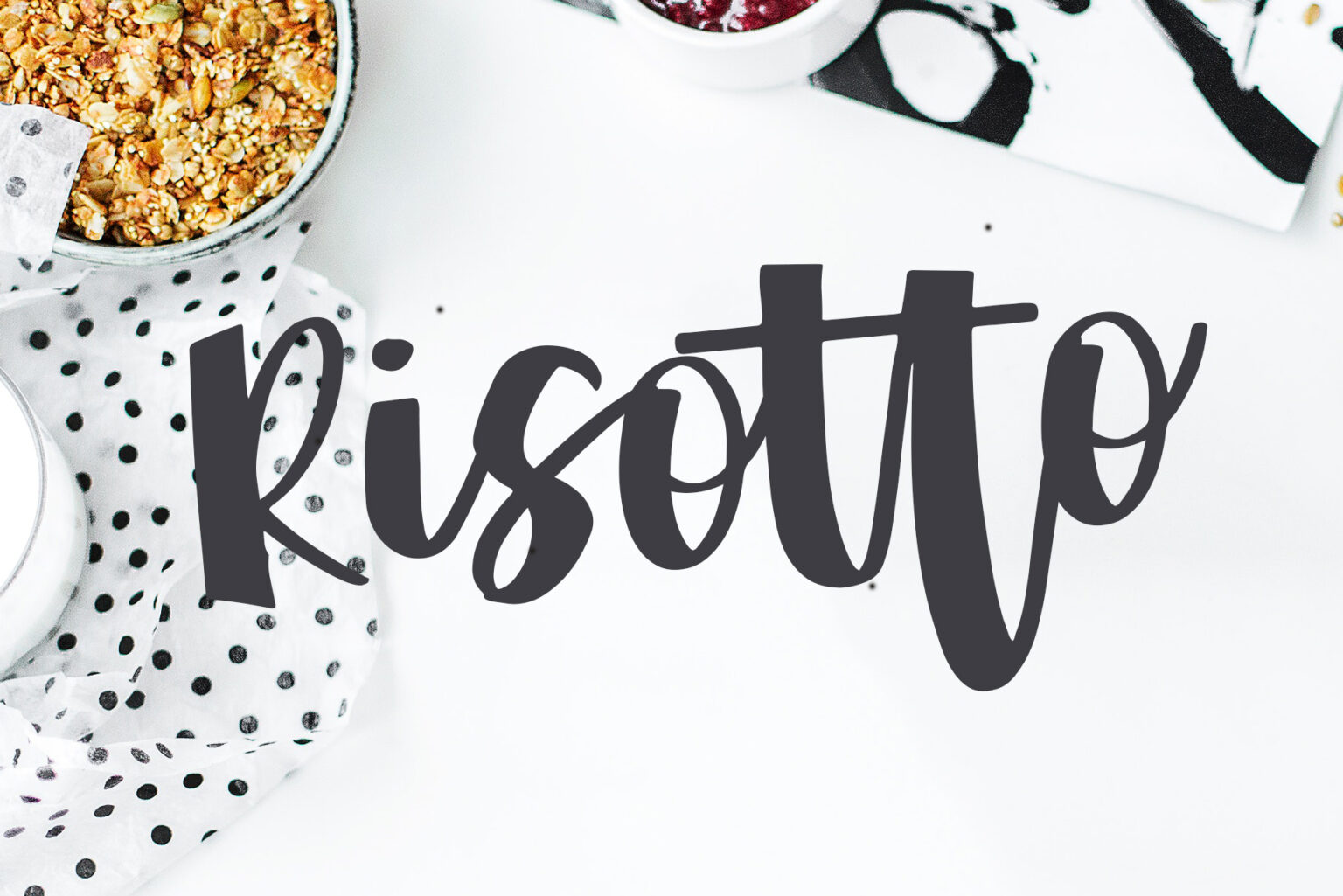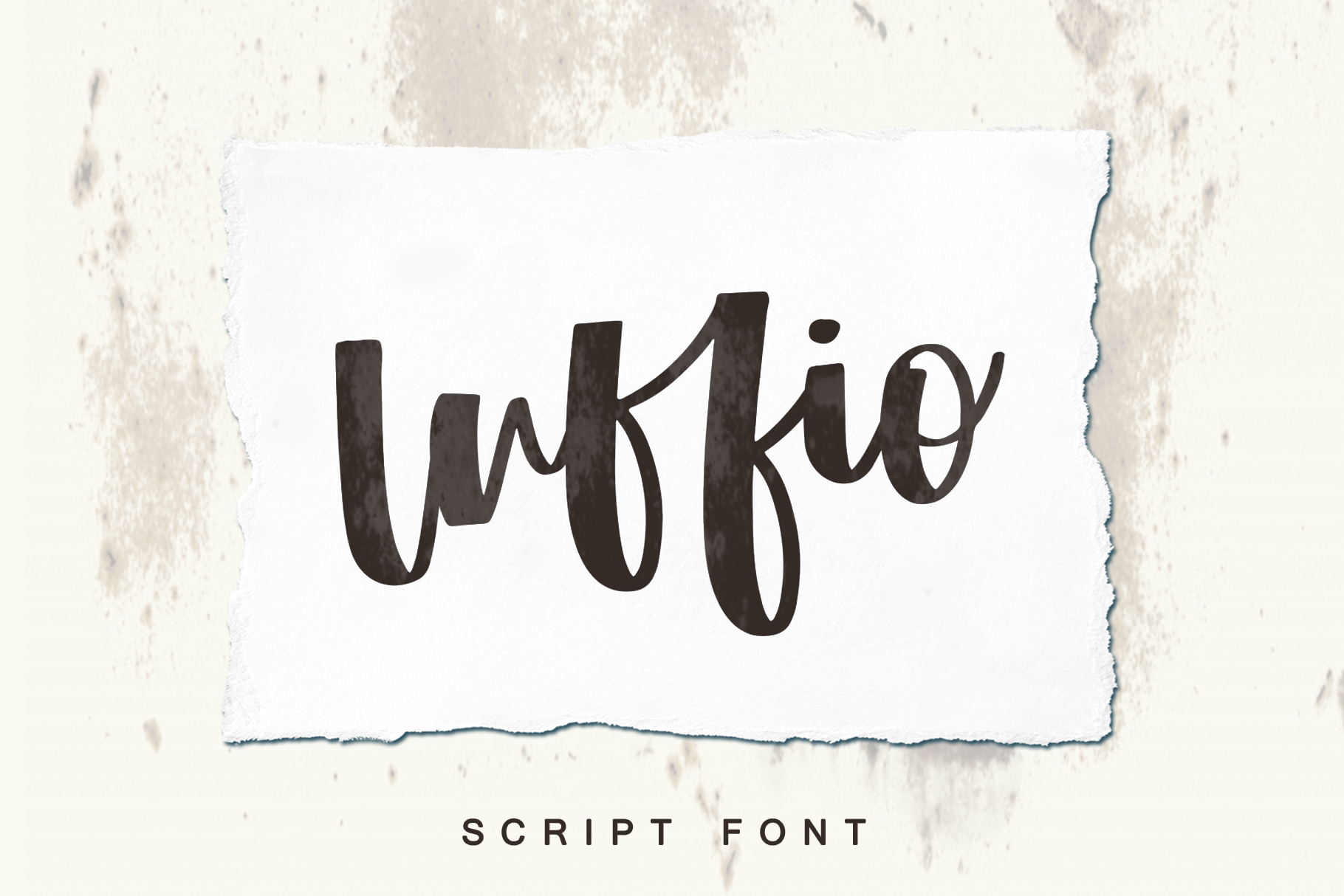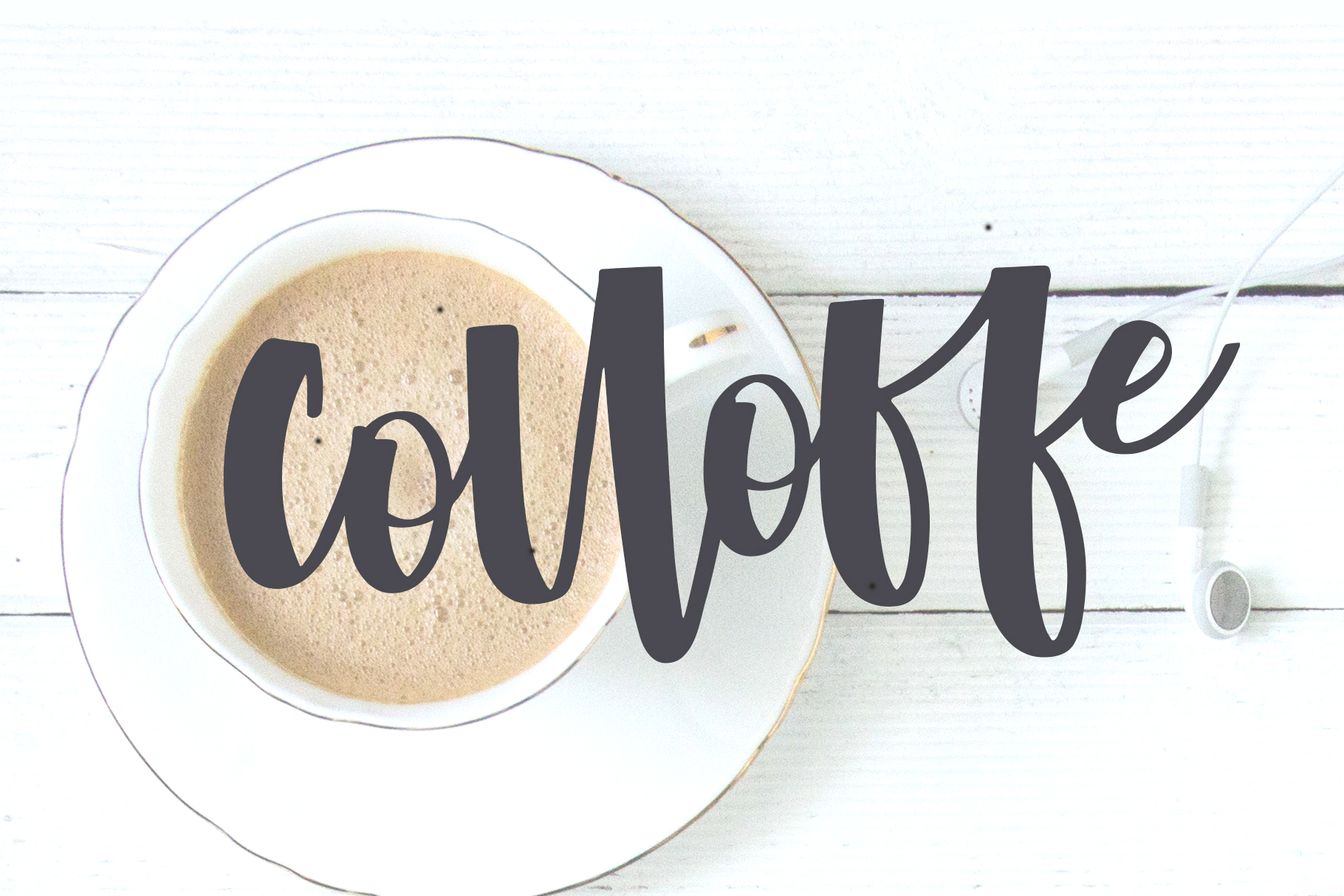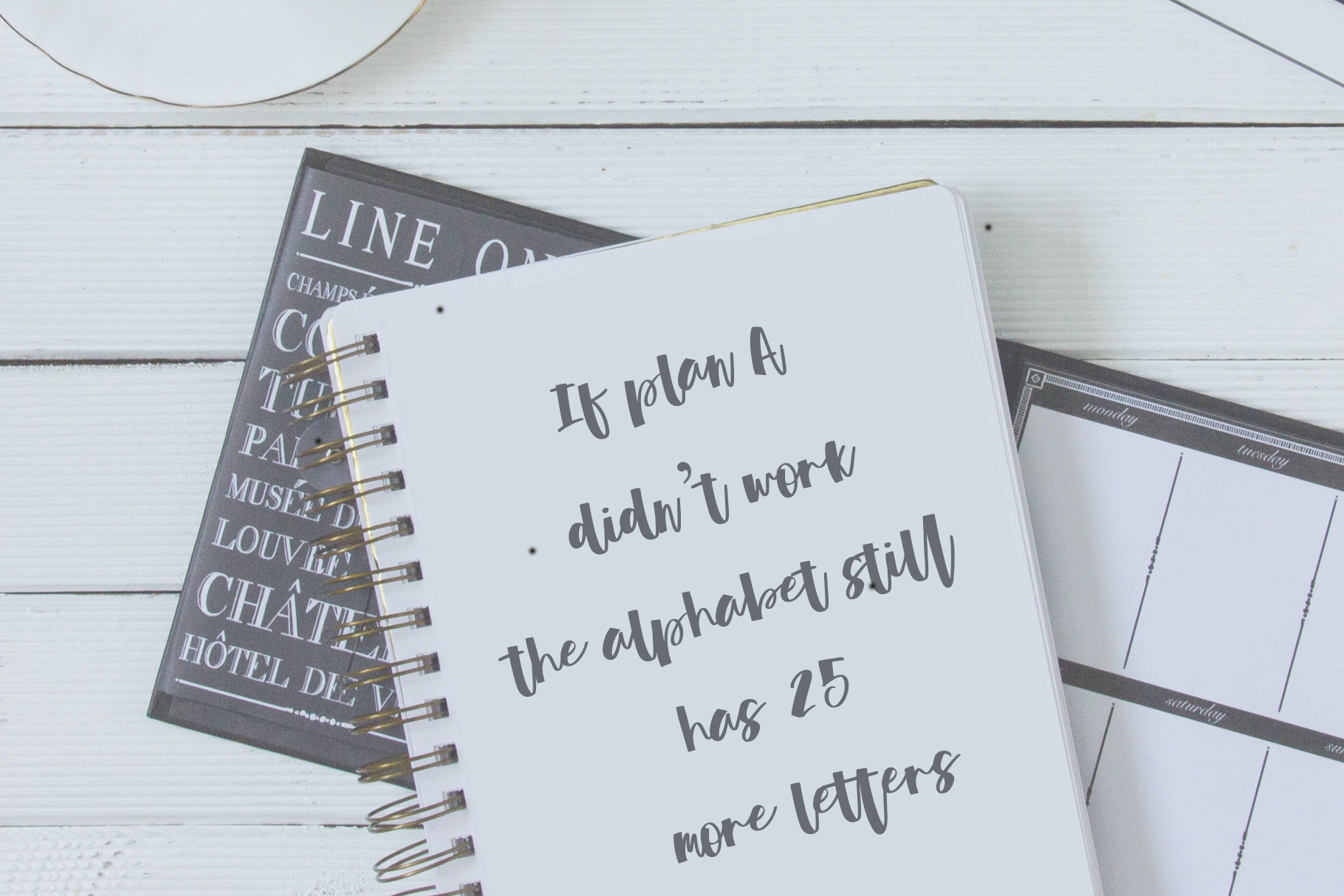
Luffio Typeface
Luffio Typeface is a brush font with a script bold style combined with thick calligraphy. This font is designed for brochures, brand names, sentence quotes, wedding invitations, business cards, and many more.